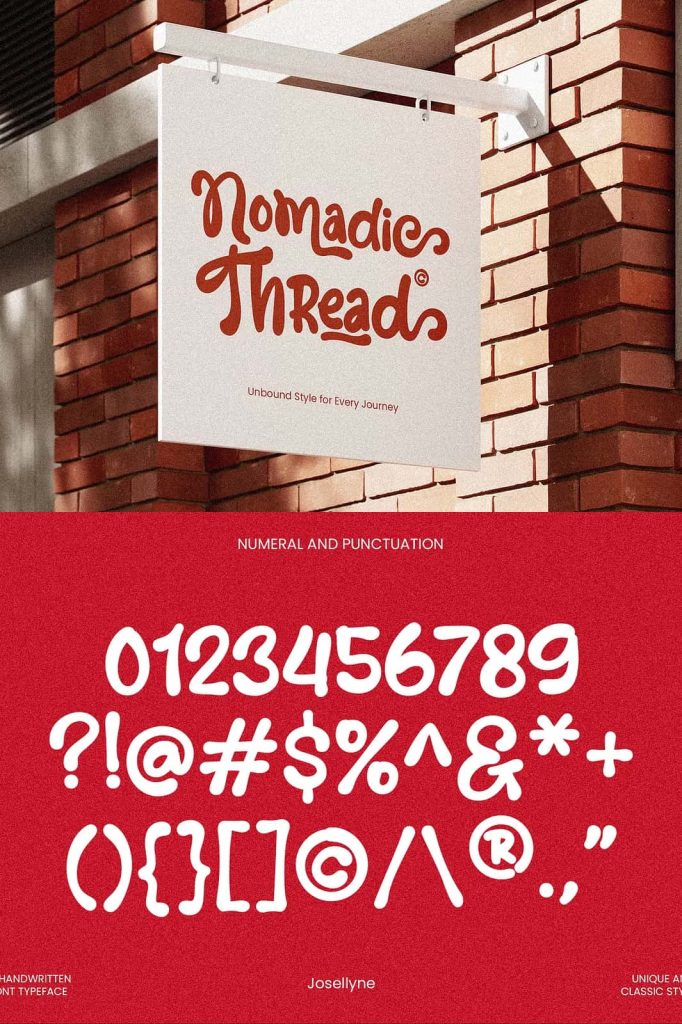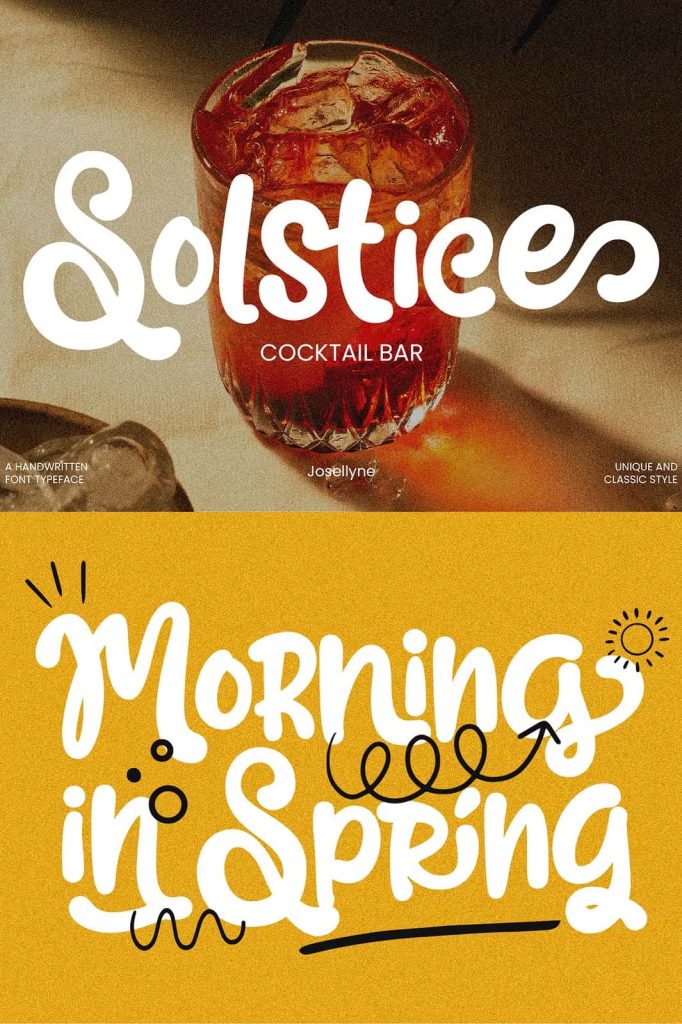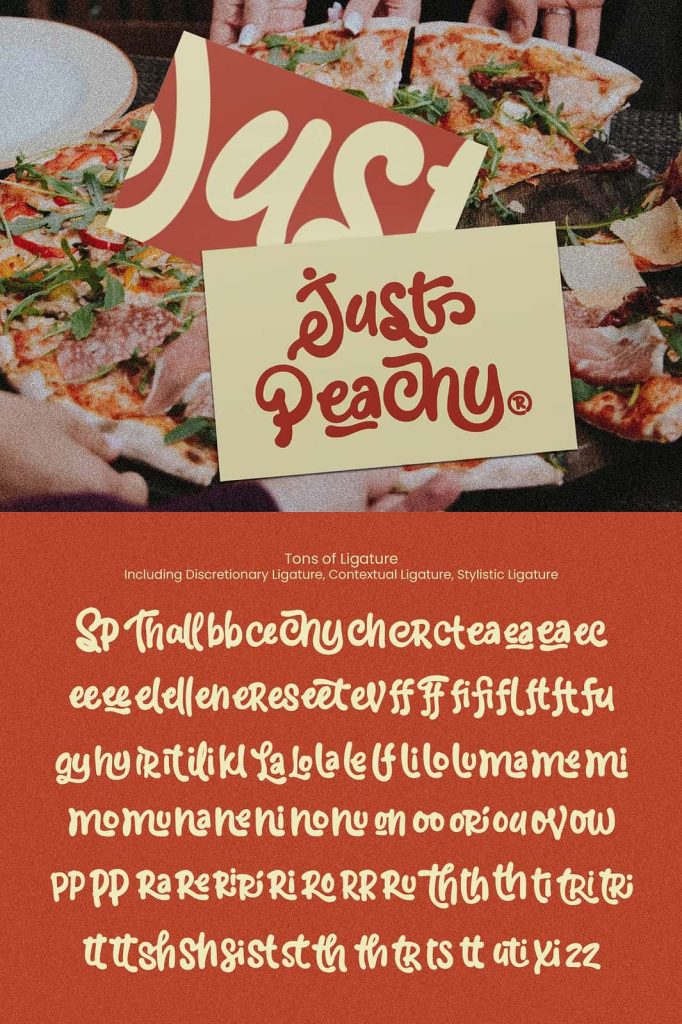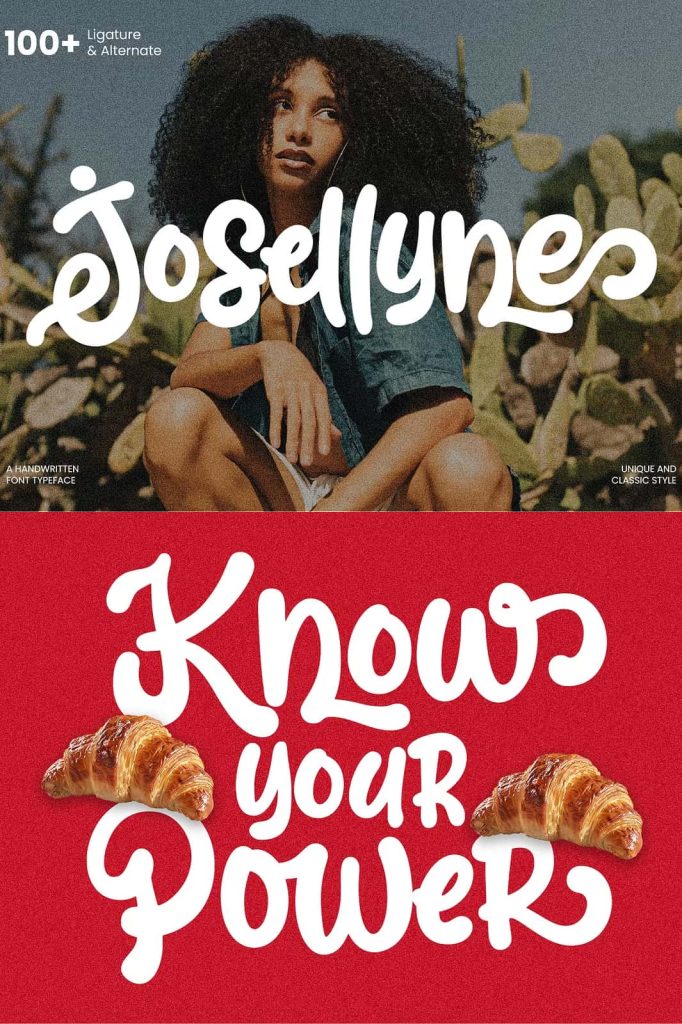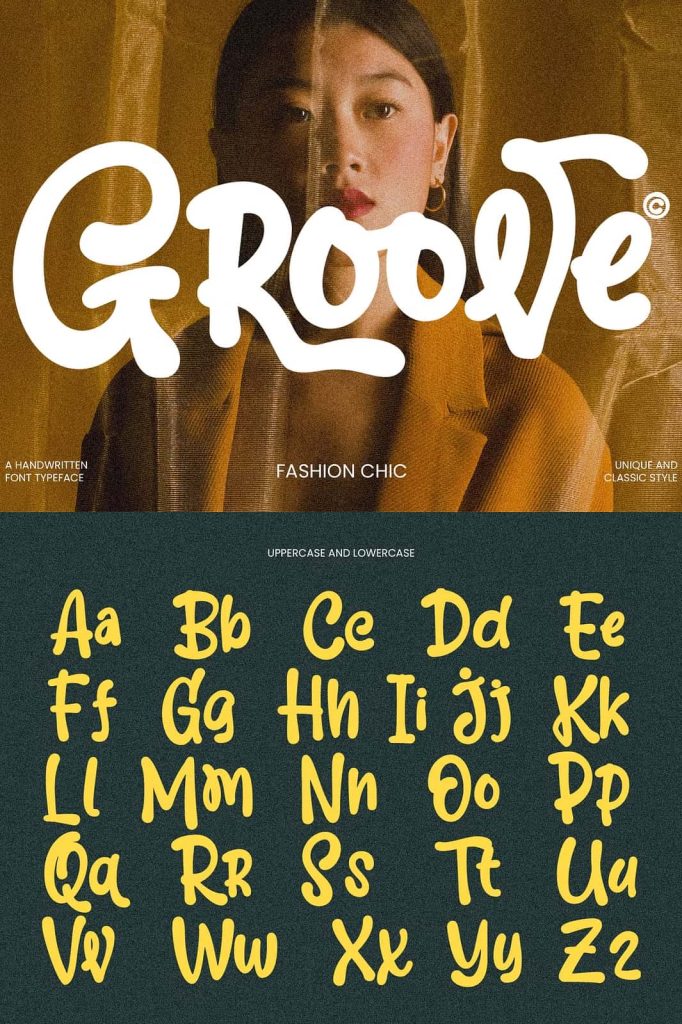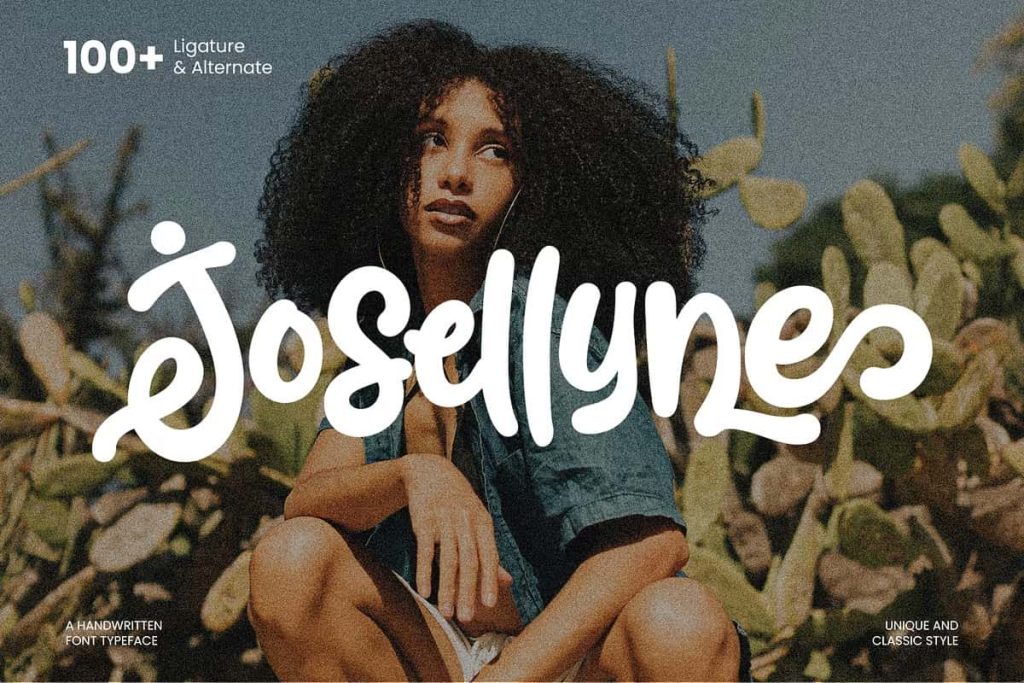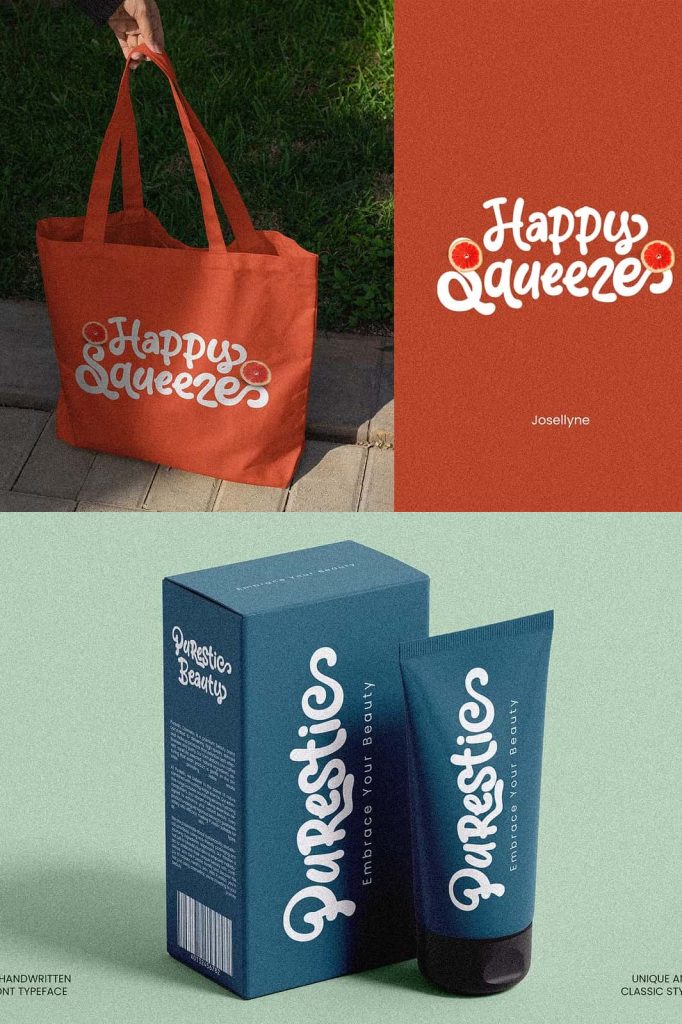
Josellyne Handwritten Display Font
Josellyne Handwritten Display Font brings a fresh, creative, and expressive personality to every design project. Crafted with playful handwritten characteristics and natural organic strokes, this display font captures the charm of authentic handwriting while maintaining excellent readability. Whether you are designing a modern brand identity, creating promotional materials, or developing eye-catching social media graphics, Josellyne helps your message stand out with style and confidence.
The font features smooth curves, lively letterforms, and an artistic flow that adds warmth and personality to both digital and print applications. Its handcrafted appearance creates a friendly and approachable visual experience, making it an excellent choice for designers who want to add a human touch to their work. Josellyne balances creativity and professionalism, allowing it to adapt seamlessly across a wide range of industries and design themes.
Playful Handwritten Style with Organic Character
Josellyne showcases a playful handwritten aesthetic inspired by natural pen movements and free-flowing strokes. Every character carries a unique charm that reflects authenticity and creativity. The organic structure of the letters helps create dynamic compositions that feel energetic, personal, and engaging.
Unlike generic display fonts, Josellyne offers a distinctive handwritten appearance that immediately captures attention. Its artistic style works exceptionally well for projects that require a casual yet polished visual identity. The font creates an inviting atmosphere while helping brands establish a memorable and recognizable presence.
Perfect for Branding and Creative Projects
Designers and business owners can use Josellyne to elevate a wide variety of creative projects. Its bold handwritten personality makes it highly effective for visual communication where originality matters. The font delivers strong visual impact without sacrificing clarity, helping audiences connect with the message quickly.
Popular applications include:
- Logo and brand identity design
- Wedding and event invitations
- Poster and flyer creation
- Social media content and advertisements
- Product packaging and labels
- Fashion and lifestyle branding
- Website headers and hero sections
- Greeting cards and stationery
- Creative marketing campaigns
- Photography and portfolio presentations
Designed to Capture Attention
Josellyne excels in headline and display applications where visual impact is essential. The font’s expressive letterforms naturally draw the viewer’s attention, making it an excellent choice for titles, promotional banners, and featured text elements. Its handcrafted design adds movement and personality, helping content appear more engaging and memorable.
Whether you are launching a new product, promoting a special event, or building a unique brand image, Josellyne provides the visual energy needed to make a lasting impression. The font helps transform ordinary text into compelling design elements that communicate creativity and confidence.
Why Choose Josellyne Handwritten Display Font?
- Playful handwritten display style
- Natural and organic stroke details
- Strong visual impact for headlines and titles
- Ideal for branding, marketing, and promotional materials
- Suitable for both digital and print designs
- Creates a warm, authentic, and creative appearance
- Enhances modern and contemporary design concepts
- Versatile across multiple creative industries
Create Memorable Visual Experiences
In today’s competitive design landscape, strong typography plays a crucial role in capturing audience attention and communicating brand personality. Josellyne Handwritten Display Font helps designers achieve both goals through its expressive handwritten style and artistic character. The font delivers a balance of creativity, elegance, and readability that supports a wide range of design objectives.
From modern branding projects to personalized invitations and promotional campaigns, Josellyne offers the flexibility needed to bring creative visions to life. Its organic strokes and playful appearance make every design feel more genuine, engaging, and visually appealing. If you are searching for a handwritten display font that combines originality with professional-quality design, Josellyne is an excellent addition to your typography collection.